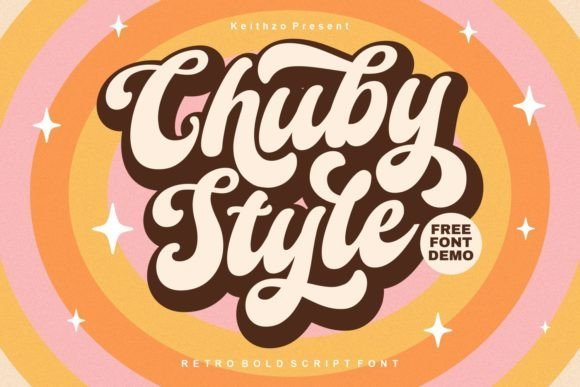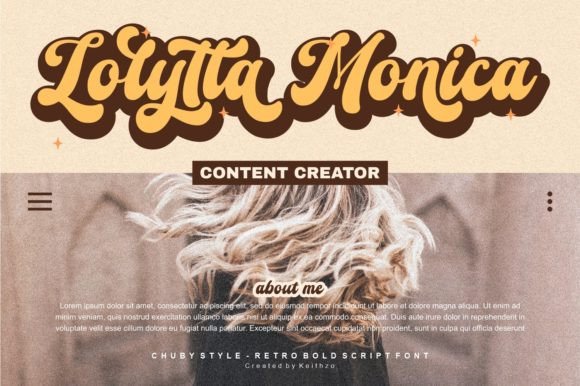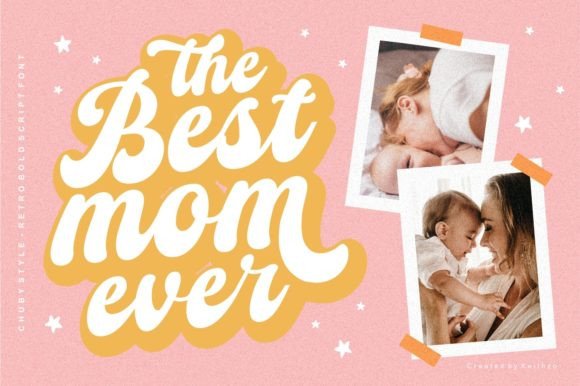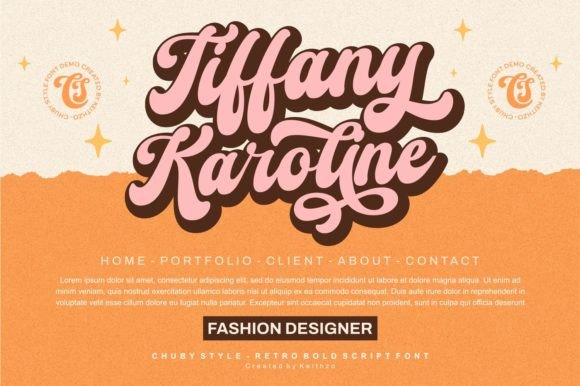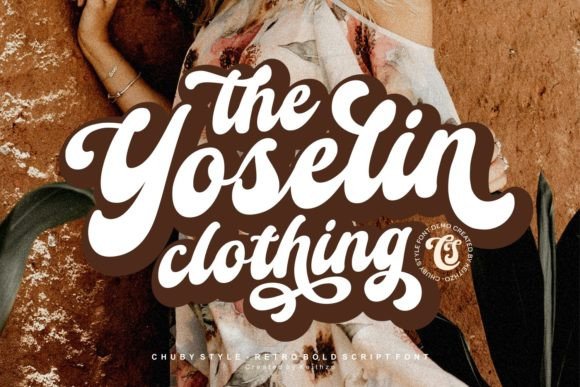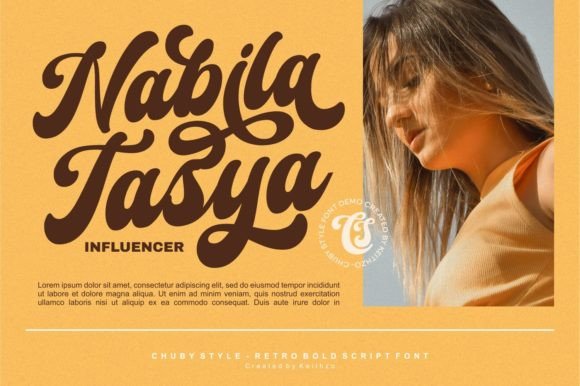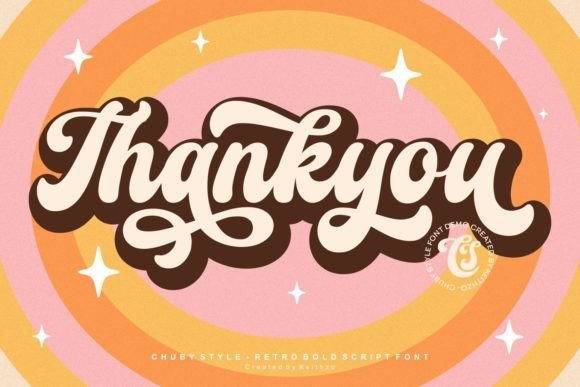
The Perfect Font for Adding a Touch of Whimsy
As a designer, there’s nothing quite like the thrill of bringing a creative project to life. You’ve spent hours brainstorming, sketching, and perfecting every detail – and then it hits you: the perfect font to tie everything together. For me, that font was Chuby Style Font, a chubby and modern script font that adds a playful yet stylish touch to any design.
Chuby Style Font is more than just a pretty face – its round edges and soft curves give it a unique and contemporary feel that’s perfect for adding a fun and inviting vibe to your work. As a designer, you know how important it is to have a versatile font that can elevate your designs and make them stand out. That’s where Chuby Style Font comes in – it’s a valuable addition to any designer’s toolkit, and it’s available for free to try out.
Key Features of Chuby Style Font
- Unique Characteristics: This font features a playful, rounded design with exaggerated curves, making it ideal for creating friendly and approachable visual identities.
- Font Style: Chuby Style Font offers multiple font styles, including Regular, Bold, Italic, and Bold Italic, allowing designers to add variety and emphasis to their text.
Designer Review: Chuby Style Font
Overall, I think Chuby Style Font has some great qualities, but it also has some limitations that prevent it from being a top-tier font. ✨ Here are some things that work well:
- Unique Character: Chuby Style Font has a distinct, playful feel that can add a lot of personality to a design. It’s perfect for projects that need a touch of whimsy.
- Good Legibility: Despite its unconventional style, Chuby Style Font is still relatively easy to read, making it a great choice for body text or headlines.
- Customization Options: The font comes in a range of weights and styles, giving designers plenty of flexibility when it comes to finding the perfect look for their project.
However, there are also some limitations to consider: ⚠️
- Limited Font Palette: While the font itself is unique, the color palette that works well with it is relatively limited. This can make it tricky to find the perfect background or accent color.
- Not Ideal for Formal Projects: Chuby Style Font is best suited for informal or creative projects. For more formal projects, you may want to consider a more traditional font.
Overall, I think Chuby Style Font is a great choice for designers who want to add some personality to their projects. While it has its limitations, it’s still a versatile and fun font to work with.
The Chuby Style Font is ideal for:
- Creating playful and whimsical designs.
- Adding a touch of personality to your brand’s visual identity.
- Designing children’s products and educational materials.
- Creating eye-catching social media graphics and advertisements.
Q: What is the character set of the Chuby Style Font?
The Chuby Style Font includes a comprehensive character set, including Latin, Greek, and Cyrillic alphabets, as well as punctuation and symbols. The font also includes a range of ligatures, alternates, and swashes to enhance your design. You can view the full character set in the font’s documentation or on our website.